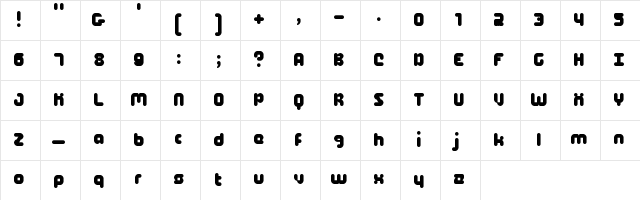
5Maach Regular
Designer: Noah - 10 year old typomaniac
Design Context for 5Maach
5Maach is a composed and adaptable typeface that performs quietly and consistently across a wide range of design contexts.